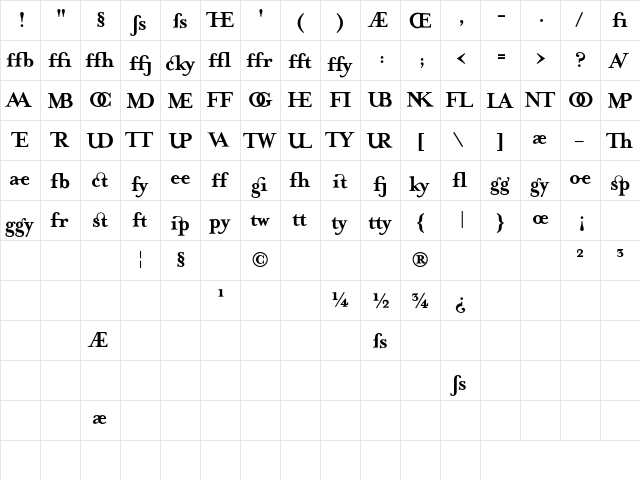
MrsEavesJustLig Bold
Design Context for MrsEavesJustLig Typeface
MrsEavesJustLig offers clean, dependable letterforms without strong stylistic allegiance, making it a practical choice for designers who need flexibility. The heavy weight commands attention and anchors typographic hierarchies.